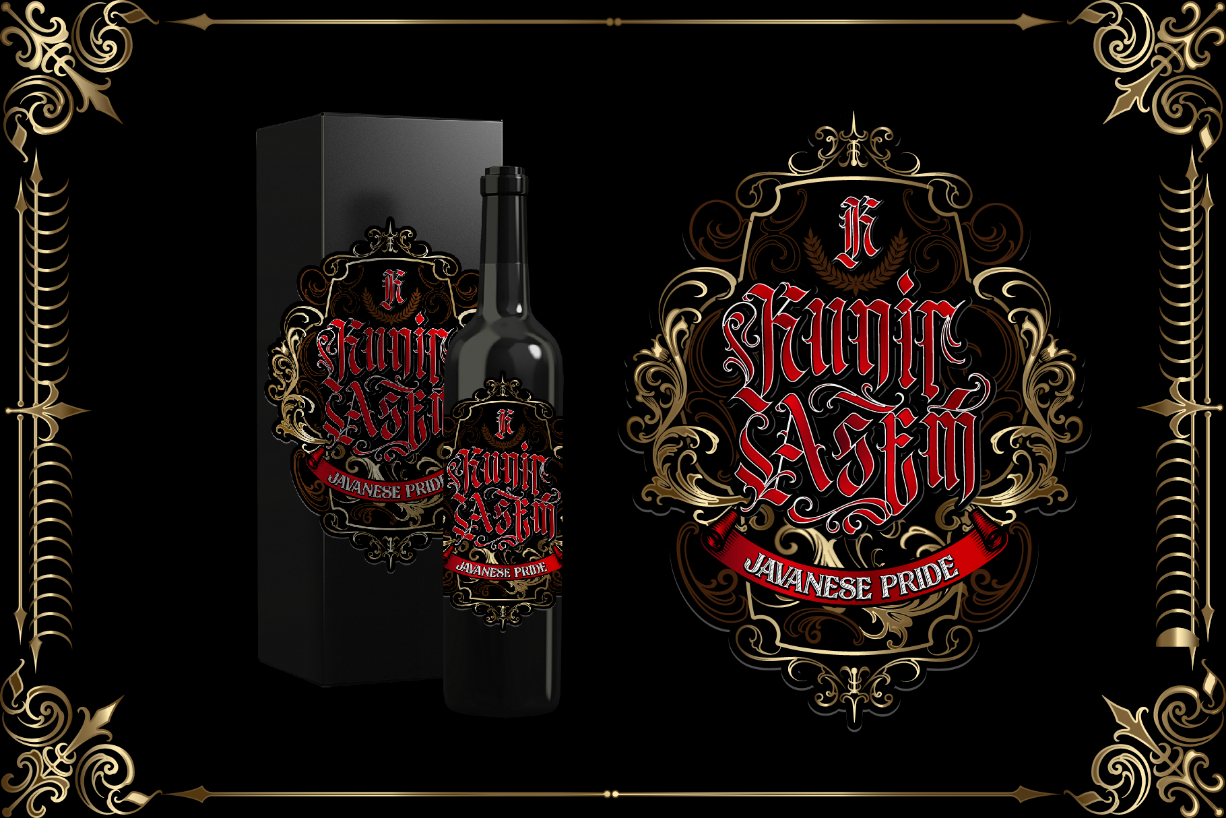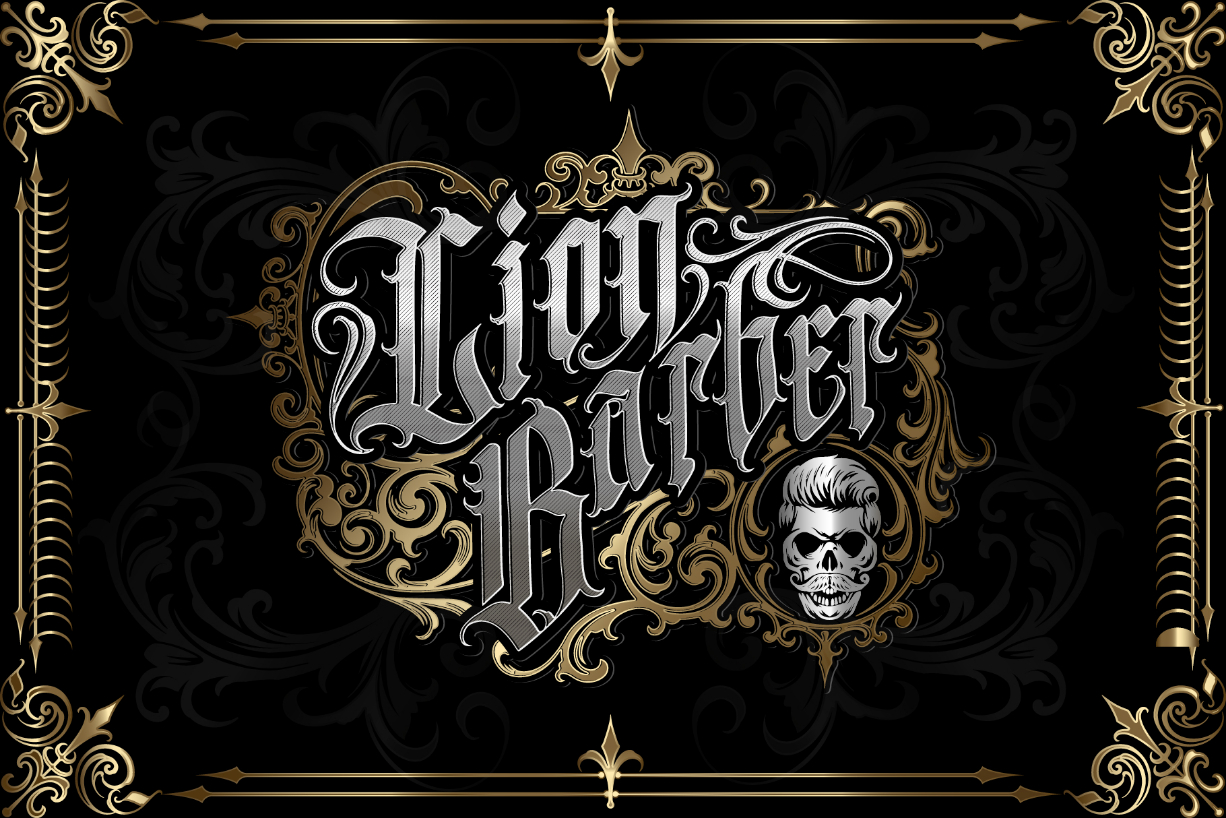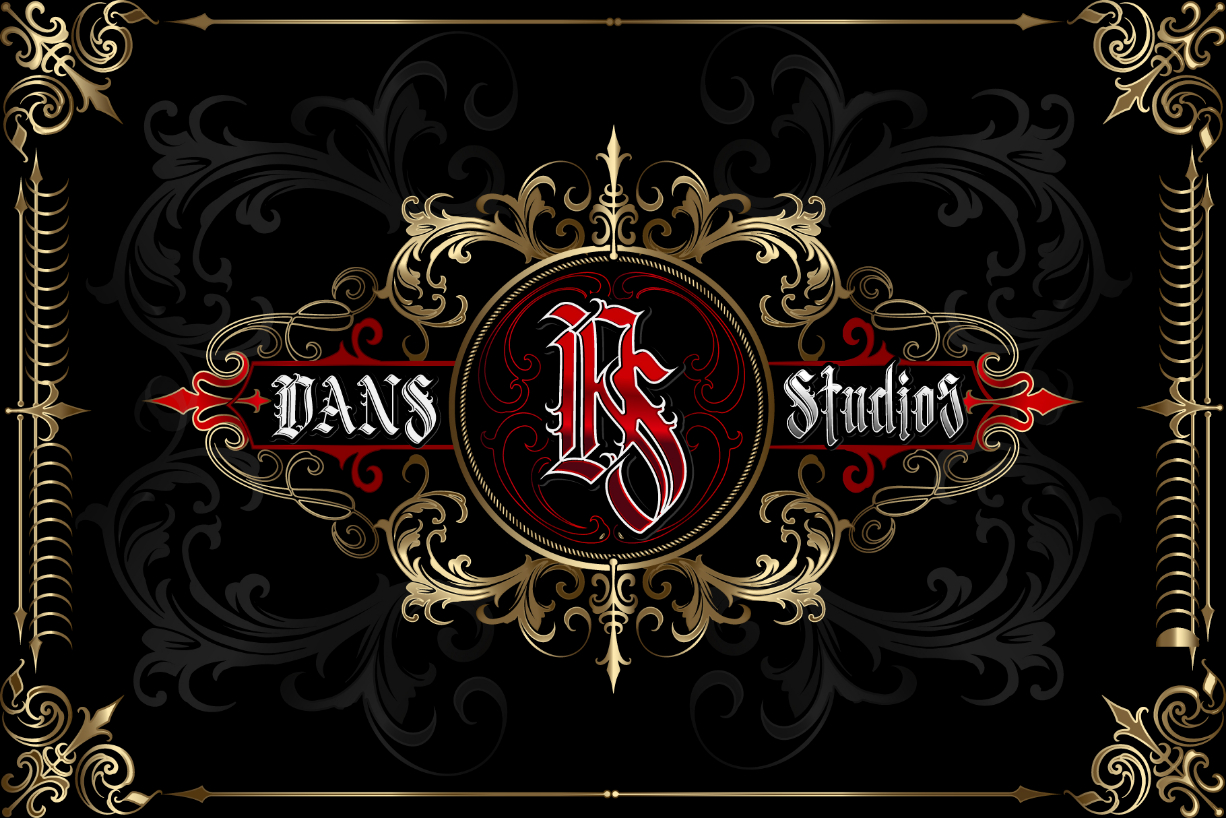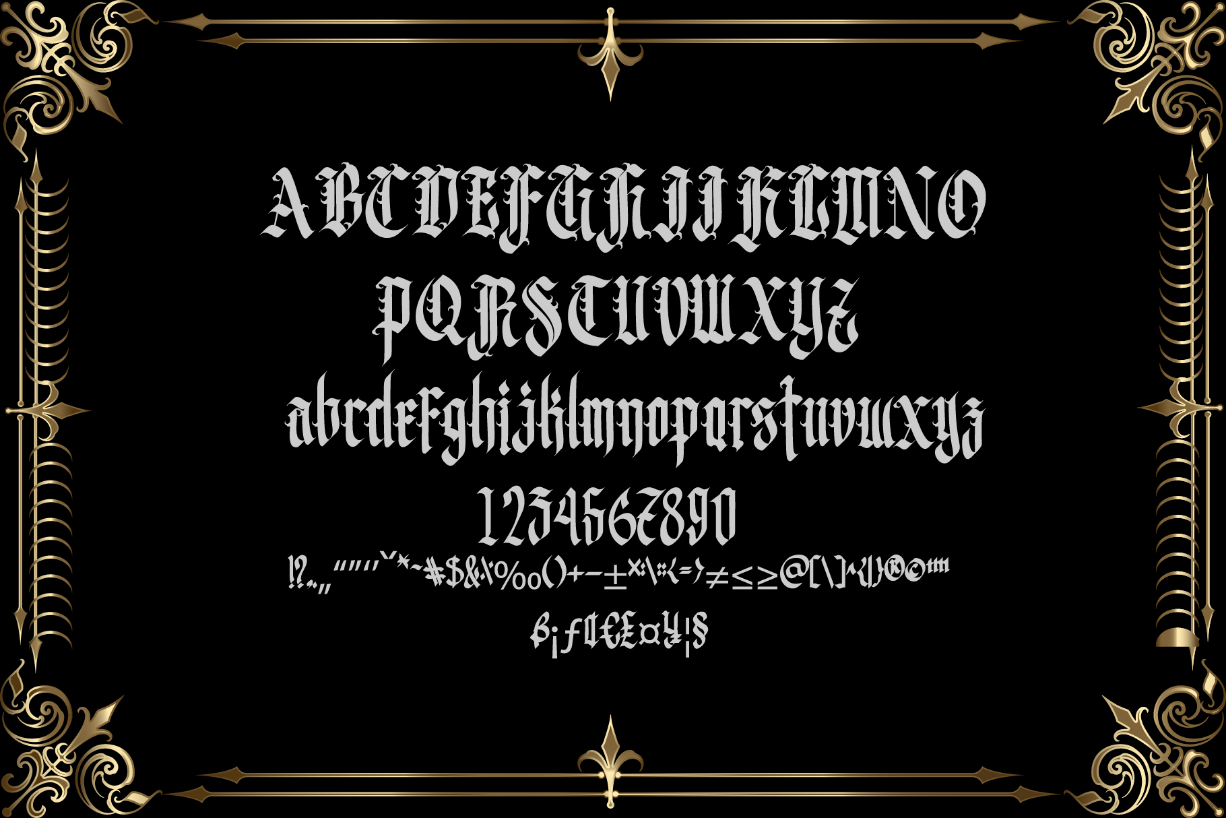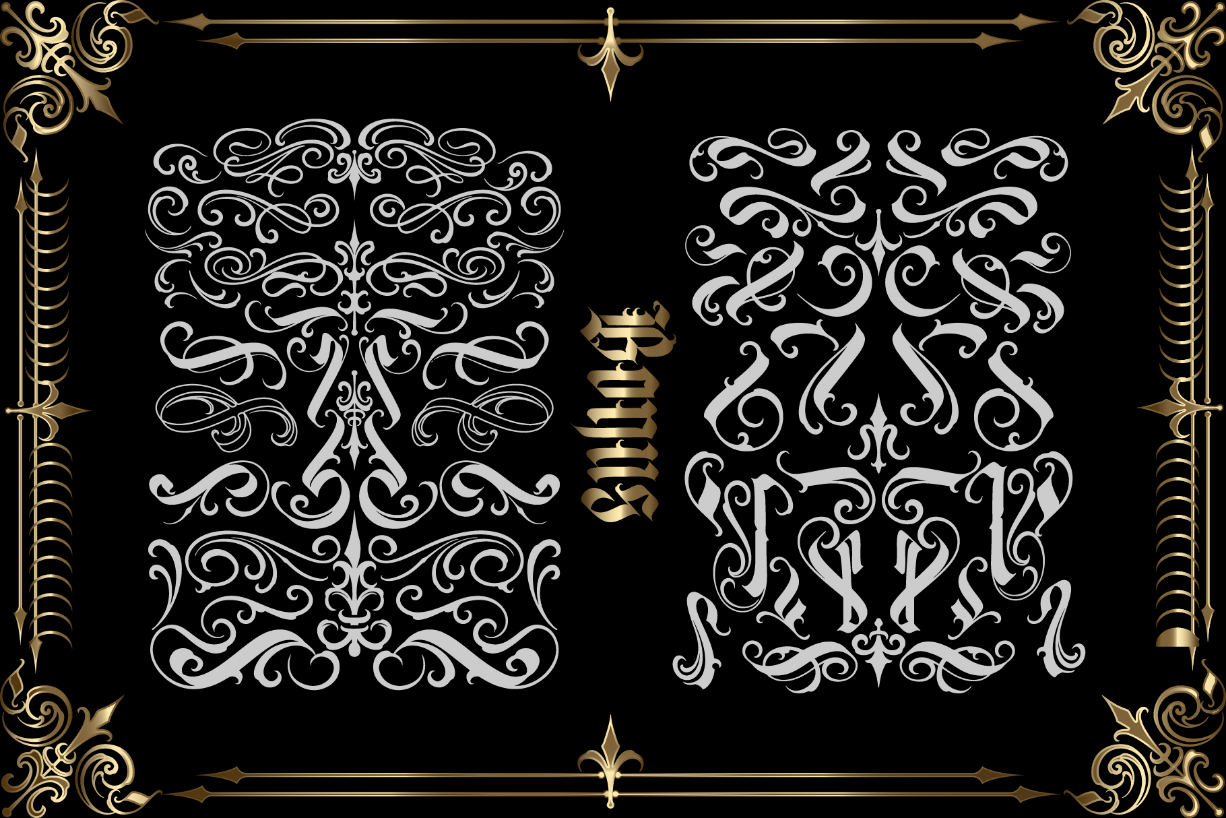
Stunegart Font
About Stunegart Font
Stunegart feels playfully nostalgic and delivers an incredible vintage aesthetic. Use this blackletter font to add that special retro touch to any design idea you can think of!